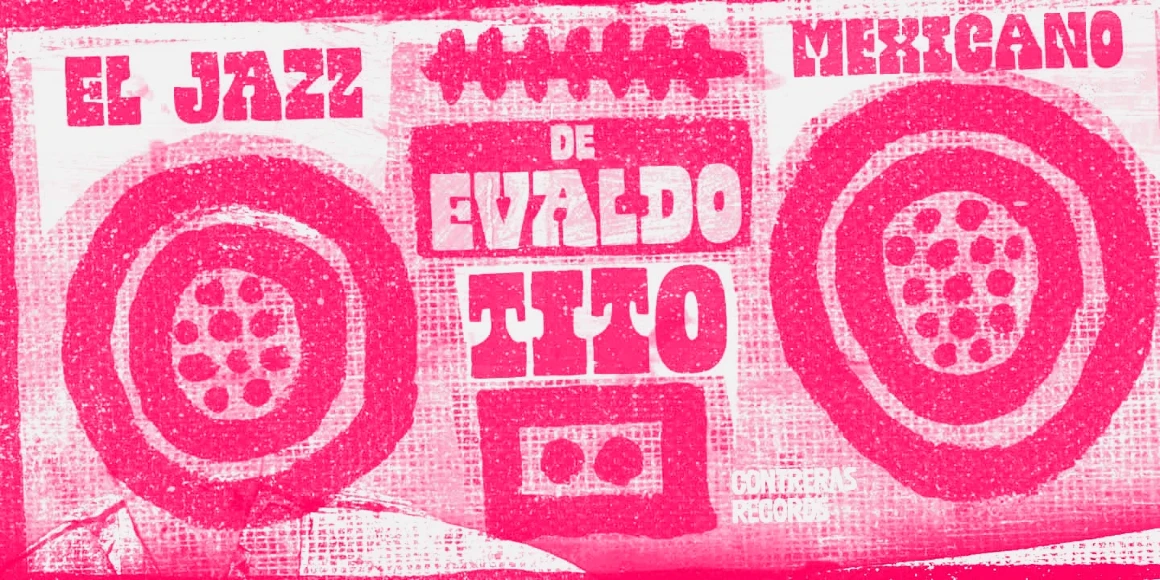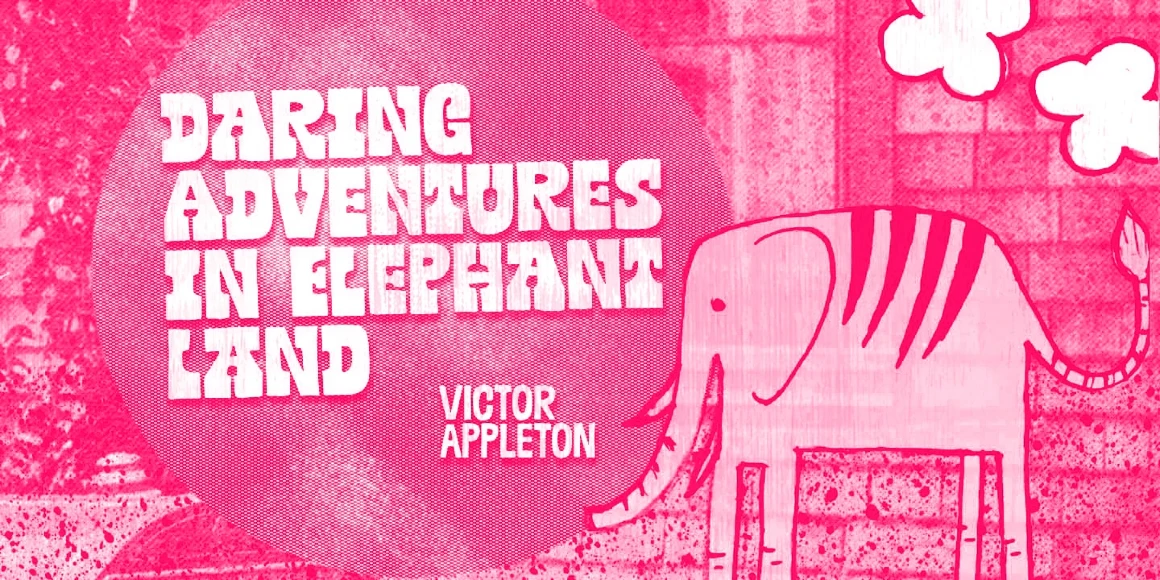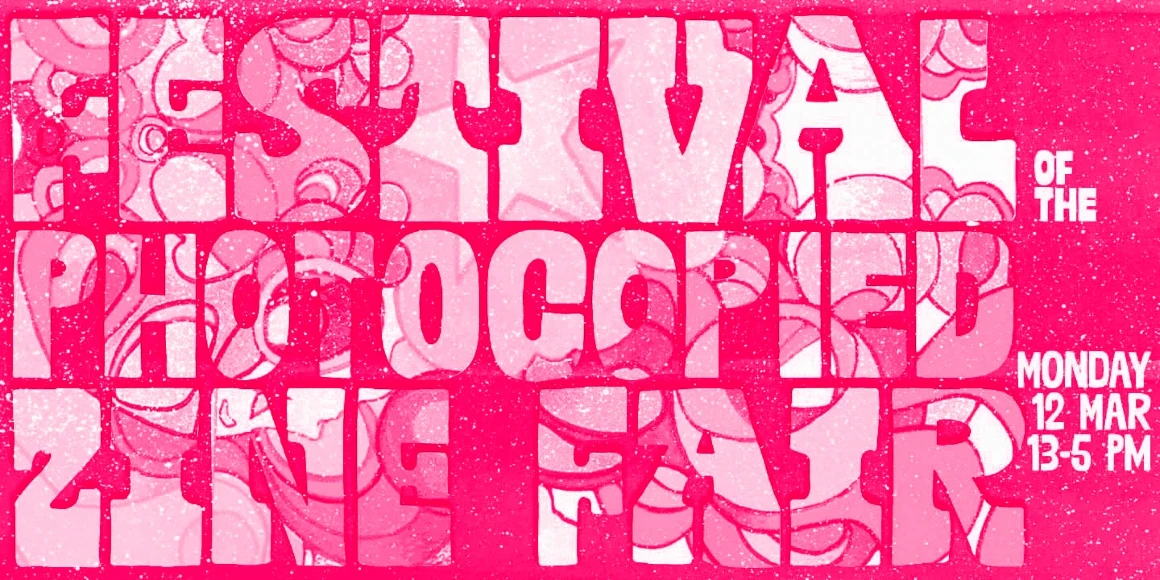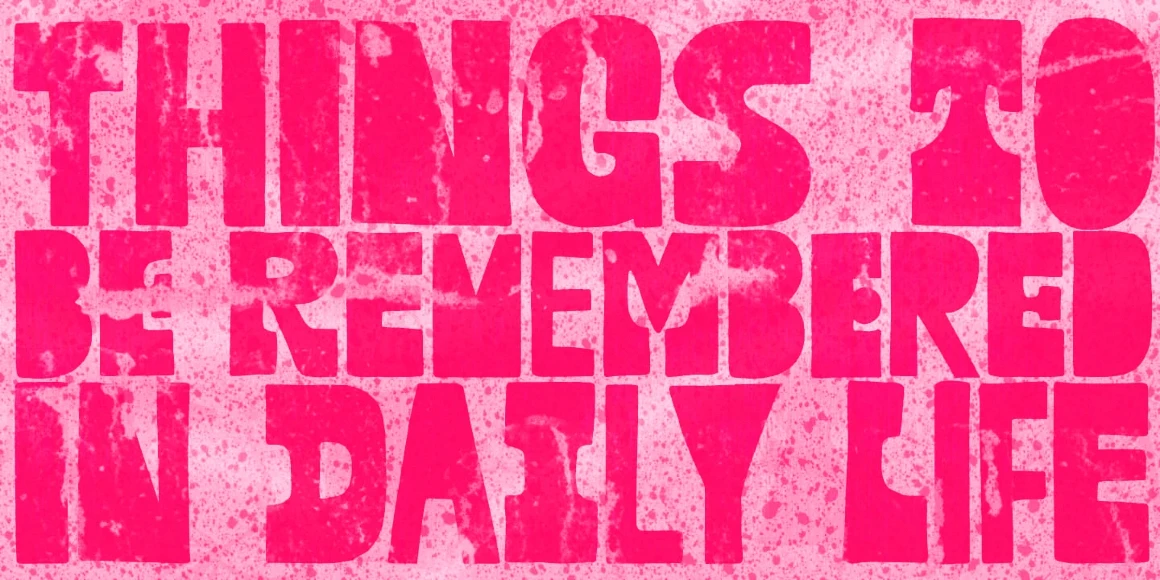
Mudstone Serif
Mudstone Serif is designed with lovely oddities and quirks. Definitely created for getting noticed in an affirmative, authentic way. Mudstone is all caps, each with at least 2 sets of uppercase letters. There are also stylistic alternates in each font for that extra something. Critically cool, seriously creative, dangerously unique. Made to work hand-in-hand with Mudstone Sans!